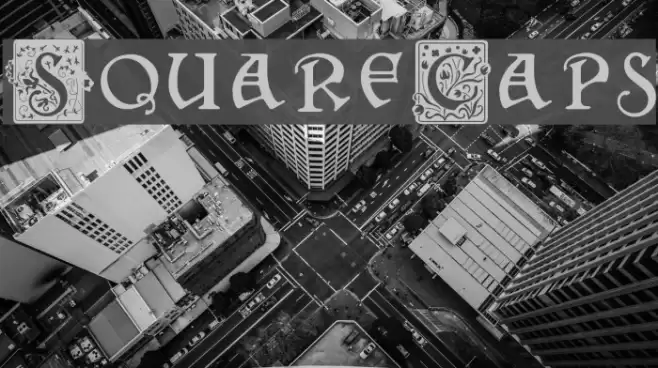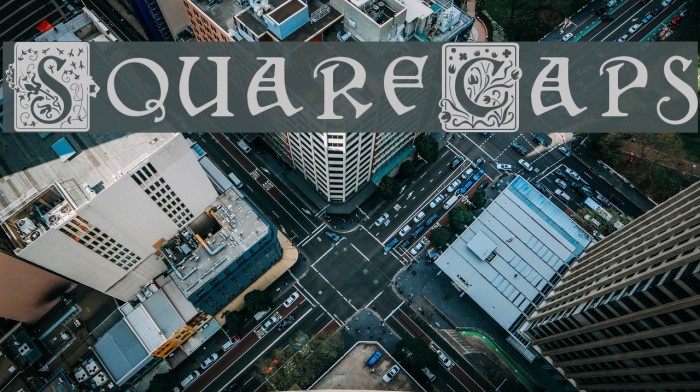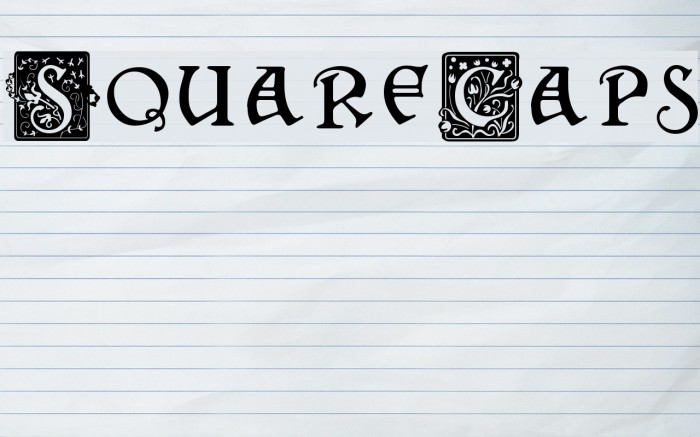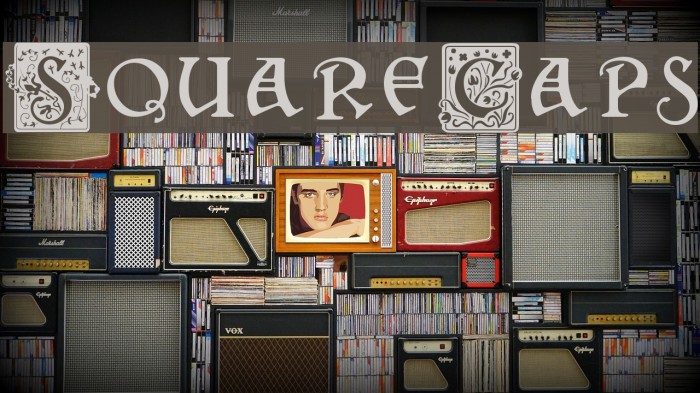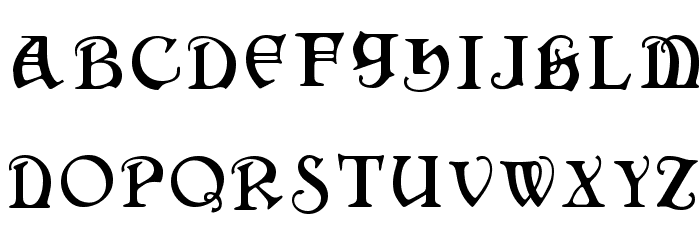
SquareCaps Font
SquareCaps Description
This font features an ornate and decorative style, characterized by intricate designs within each letter. The uppercase letters are enclosed in square frames, each filled with elaborate patterns and embellishments, giving them a distinct and artistic appearance. The second row of uppercase letters is more traditional, with elegant curves and a slightly medieval flair, reminiscent of Gothic script. The font does not include lowercase letters or numbers, focusing solely on uppercase characters. Its unique style makes it suitable for projects that require a touch of elegance and historical charm.
An ornate and decorative uppercase font with intricate designs and a Gothic flair from Gothic fonts.
- Proposed Projects: Ideal for invitations, certificates, book covers, and any project needing a historical or artistic touch.